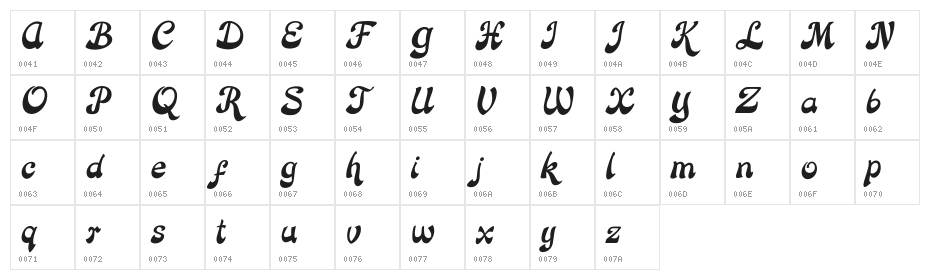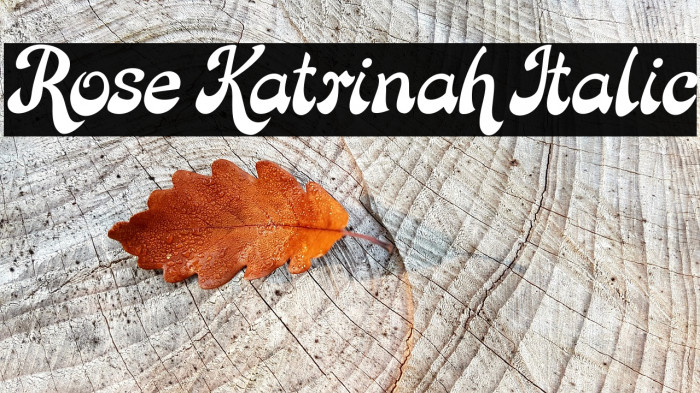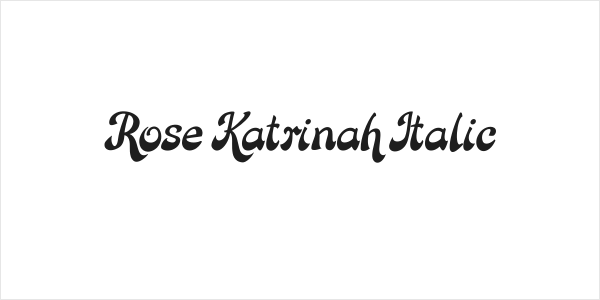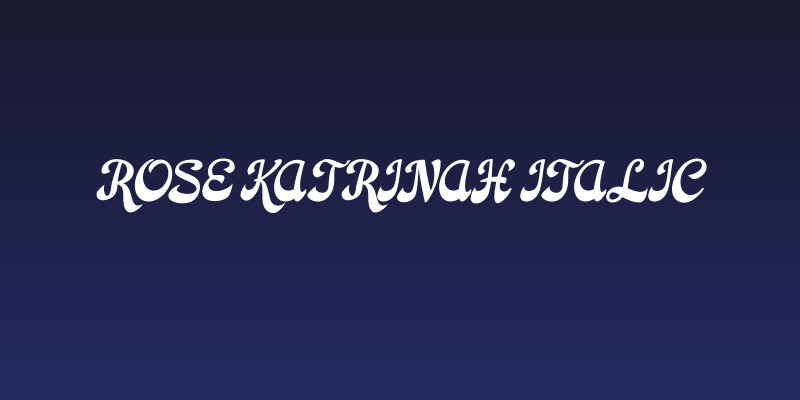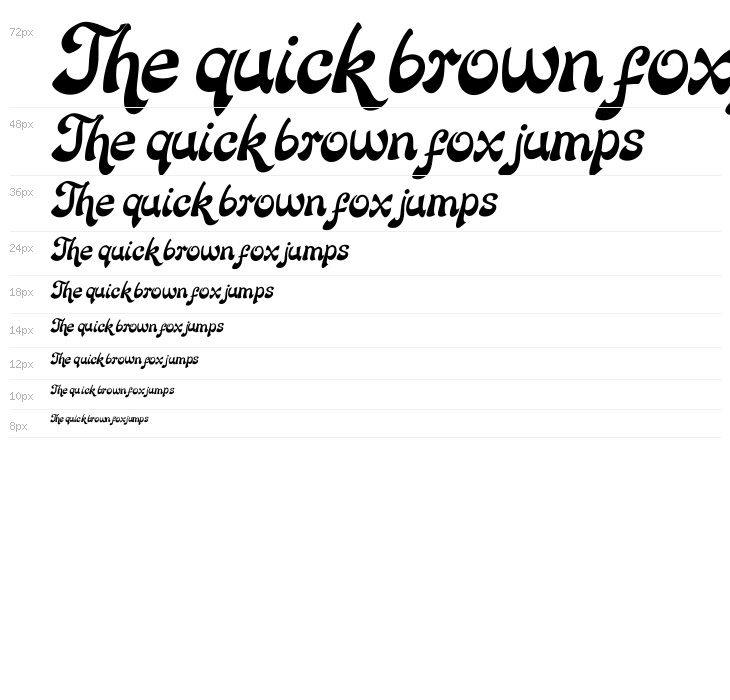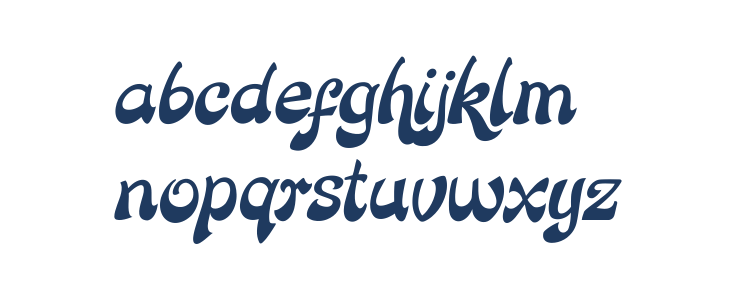
Rose Katrinah Italic Font
Rose Katrinah Italic Description
This font features a flowing, cursive style with elegant curves and a dynamic slant, giving it a sense of movement and grace. The characters are connected, enhancing the script-like appearance, while maintaining legibility. The uppercase letters are bold and prominent, with distinctive flourishes that add a touch of sophistication. The lowercase letters are more compact, with smooth transitions between strokes. The numerals and special characters are consistent with the overall style, offering a cohesive look. This font is ideal for projects that require a personal, handwritten touch, such as invitations, greeting cards, or branding materials.
| Use Case | Headlines, Logos, Decorative text |
| Proposed Projects | Ideal for invitations, greeting cards, branding materials, and decorative headings. |